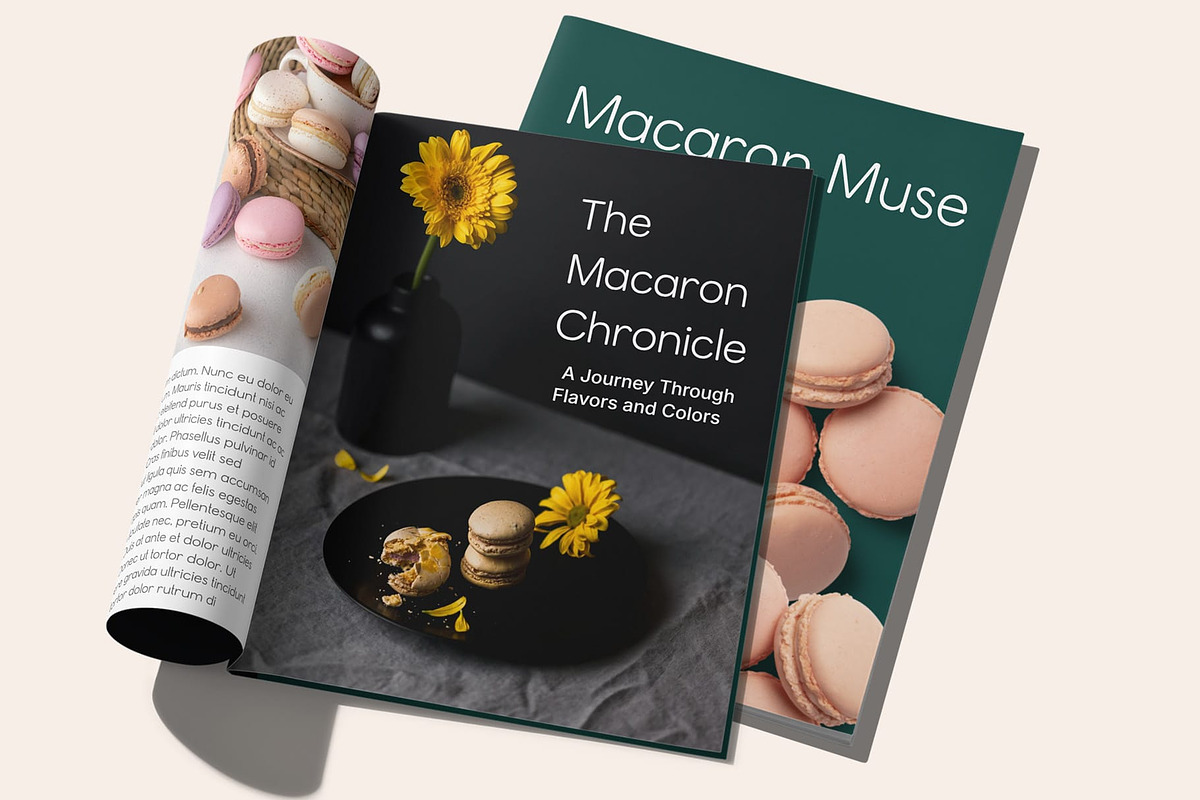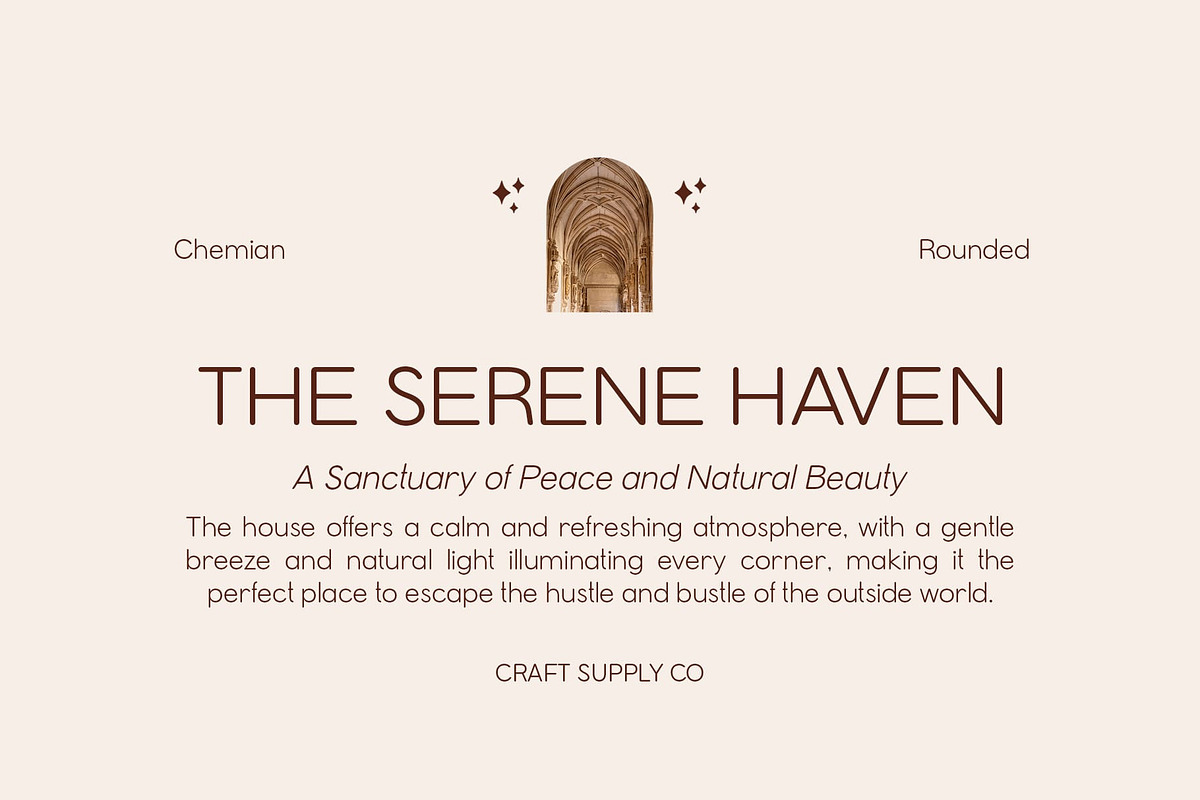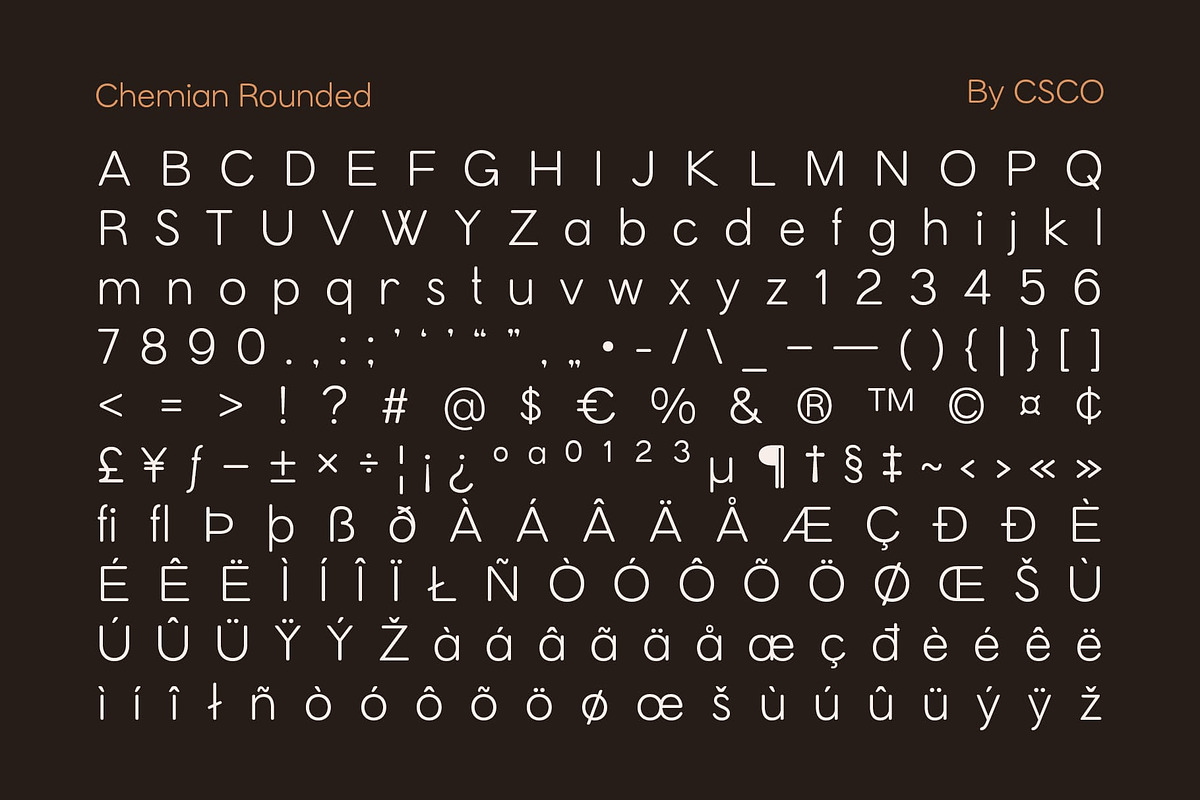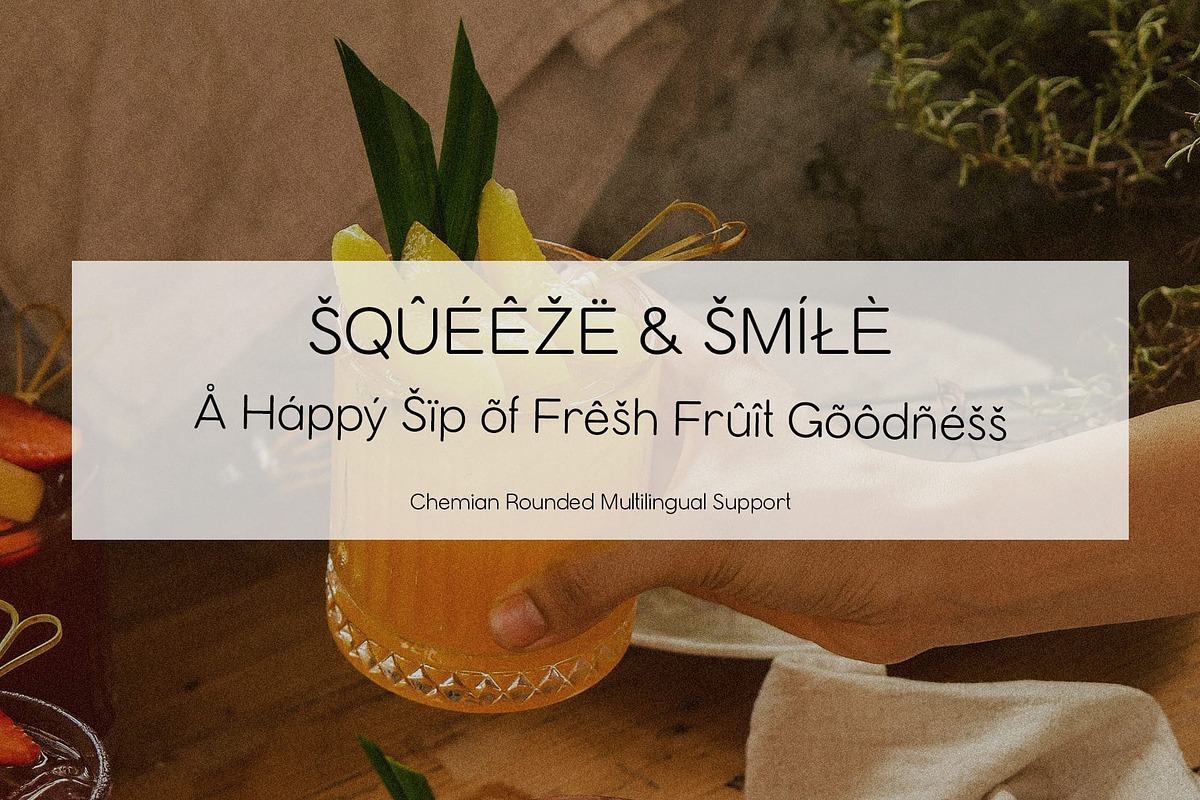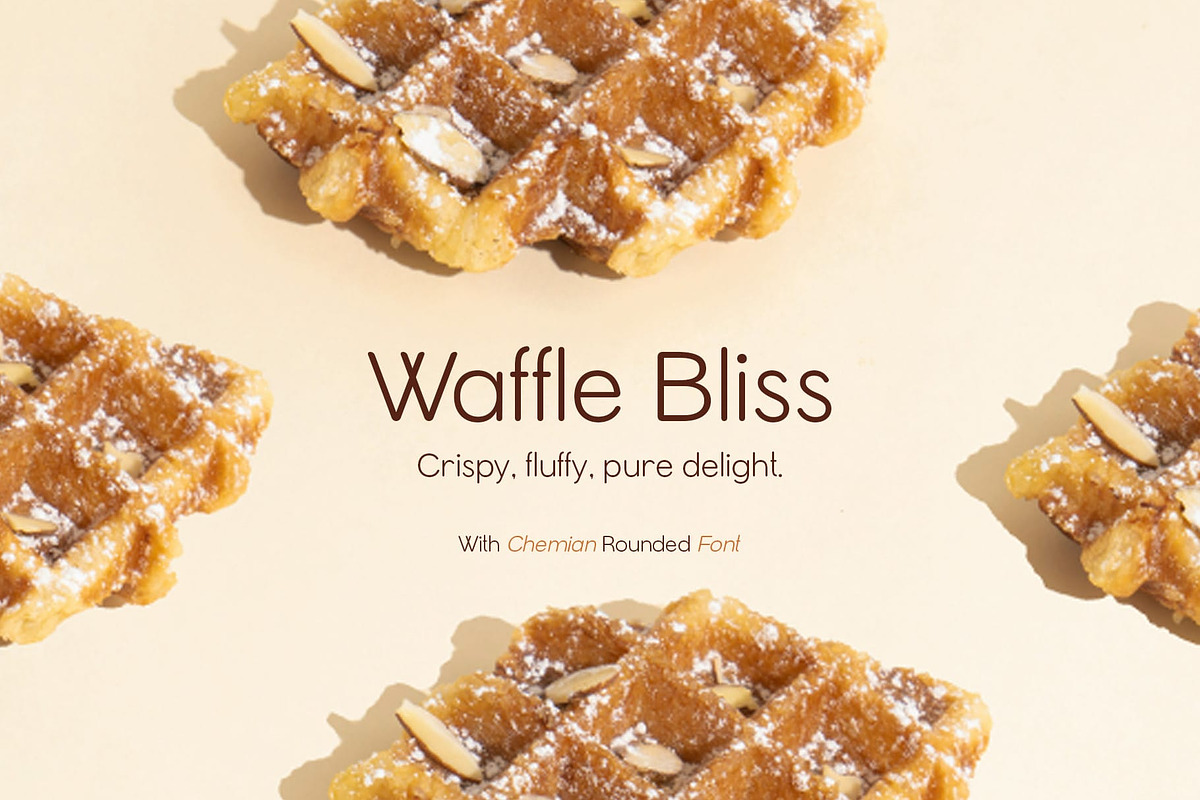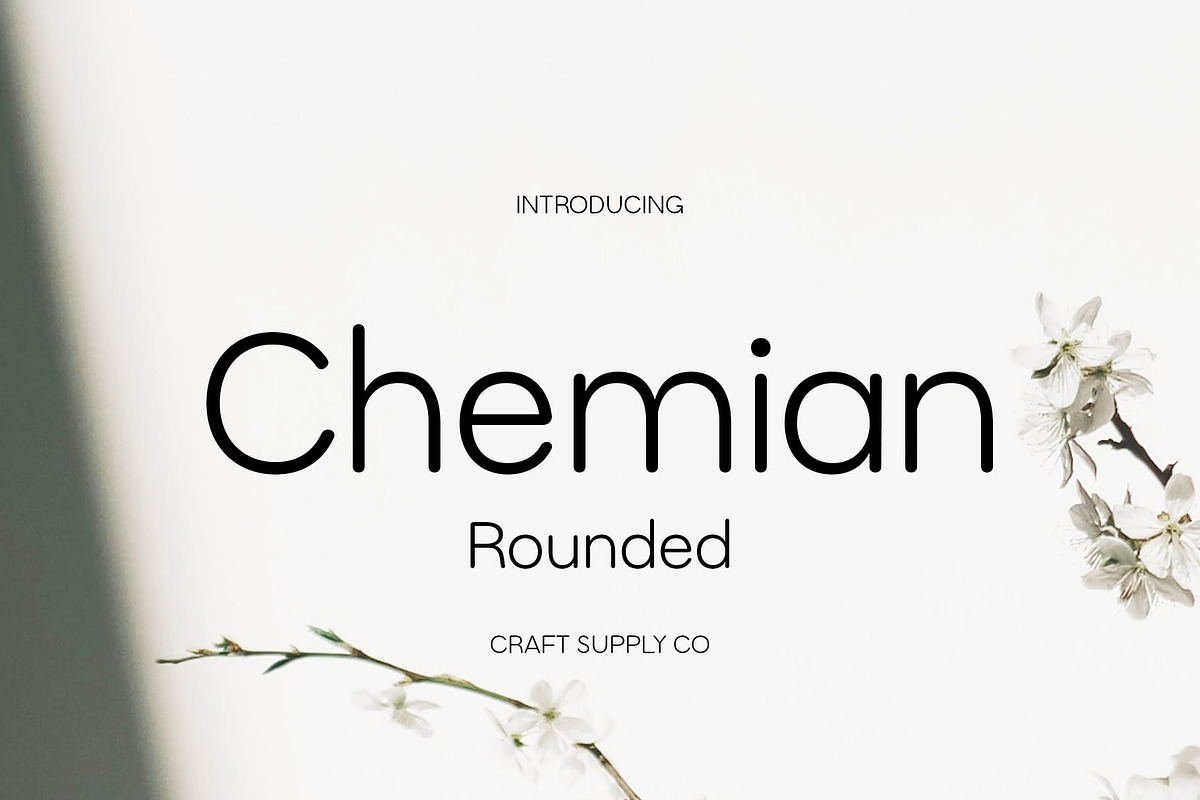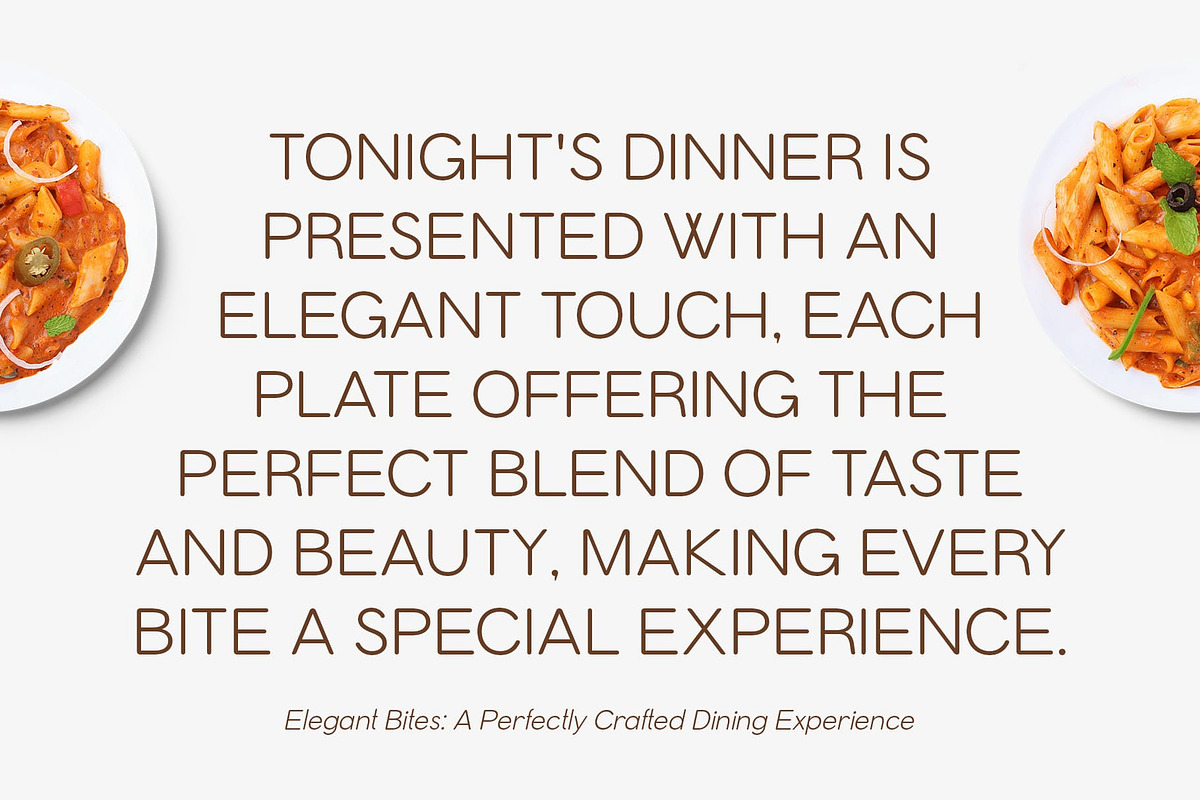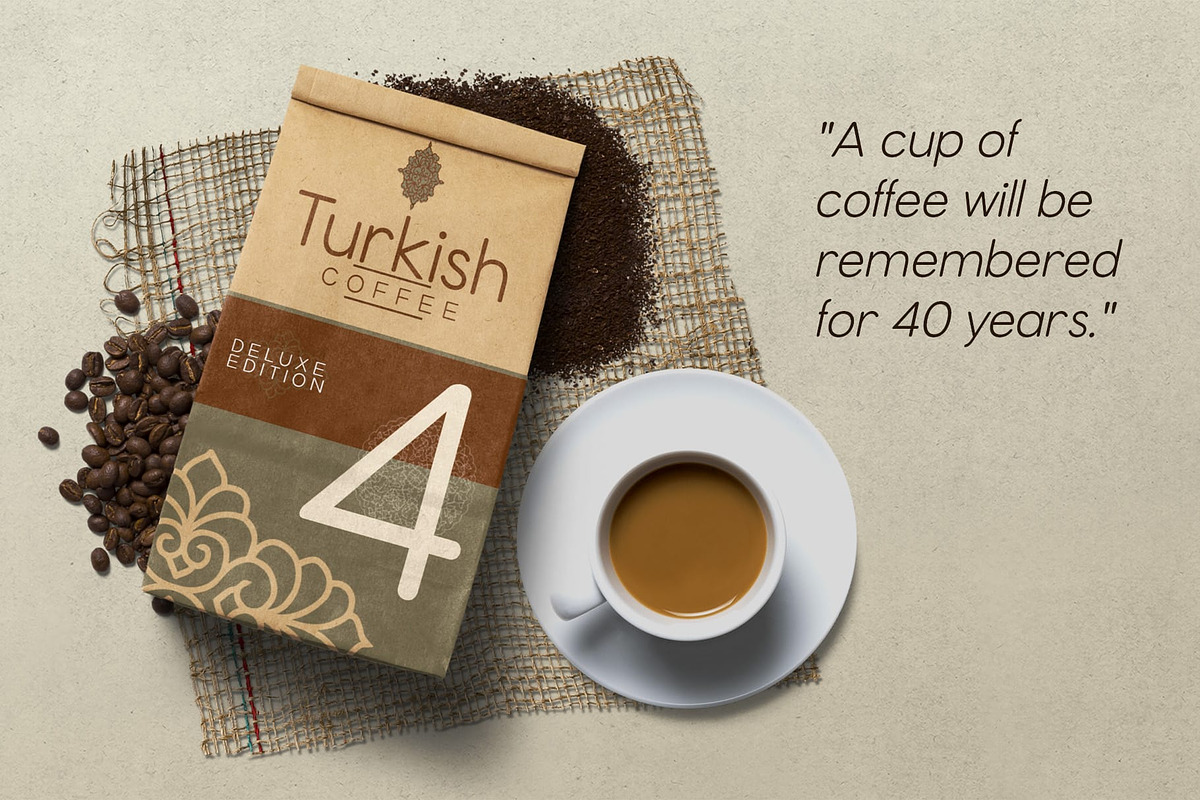
Chemian Rounded
Chemian Rounded – Modern Sans-Serif Font: Simple, Stylish, and Approachable
Minimalist Geometric Design with Rounded Edges Chemian Rounded is a modern sans-serif font that blends minimalist geometric shapes with soft, rounded curves. The font’s clean and simple design creates a sophisticated yet friendly appearance, offering the perfect balance between professionalism and approachability. The rounded edges add warmth to the otherwise sleek, geometric structure, ensuring a versatile style suitable for various contemporary design applications.
Professional Yet Inviting Appeal With its clean lines and soft curves, Chemian Rounded offers a polished, professional look without losing its approachable charm. This makes it an ideal choice for branding, corporate identities, and editorial projects that need to convey both trustworthiness and warmth. Its friendly appearance ensures that it engages viewers while maintaining a high level of professionalism, making it perfect for modern, stylish designs across multiple platforms.
Optimized for Legibility and Versatility The geometric structure of Chemian Rounded guarantees legibility and clarity in both print and digital formats. Its simple forms ensure that the font remains readable even at smaller sizes, while the rounded shapes add a touch of uniqueness and softness. Whether used in logos, websites, or promotional materials, this font works seamlessly to ensure your designs are both aesthetically pleasing and highly legible.